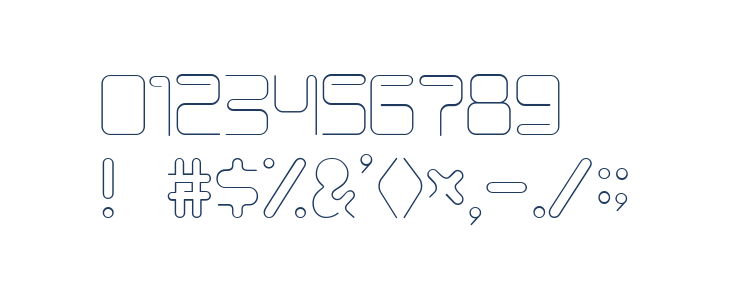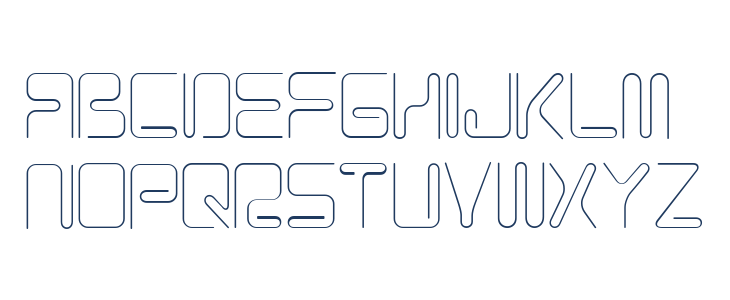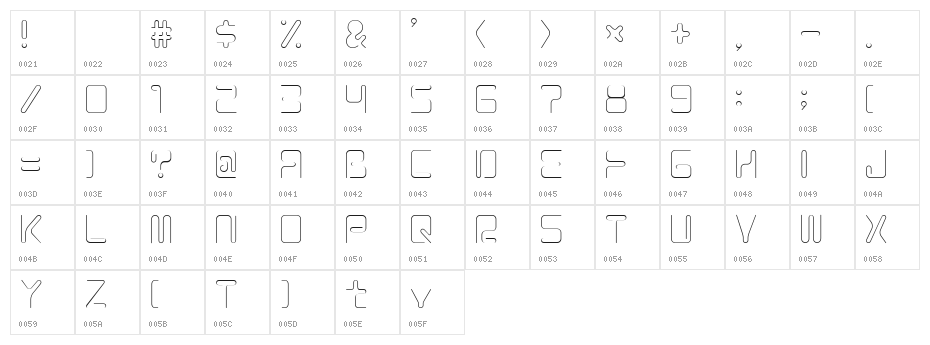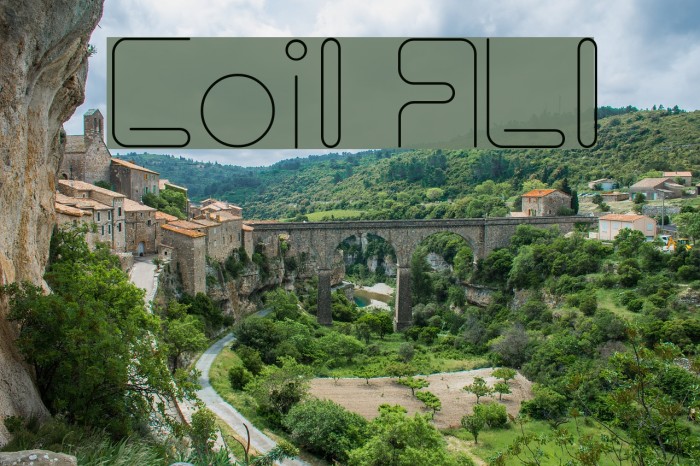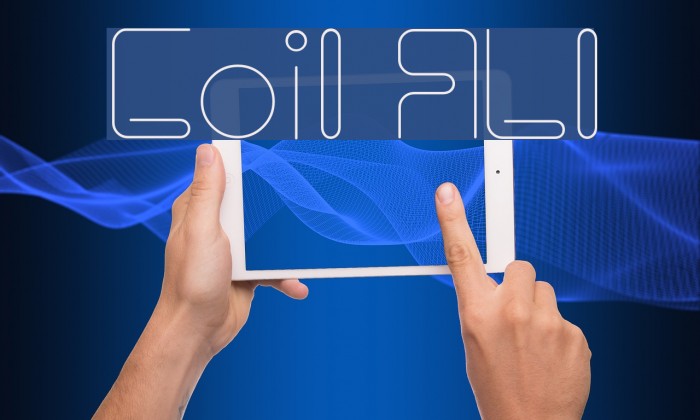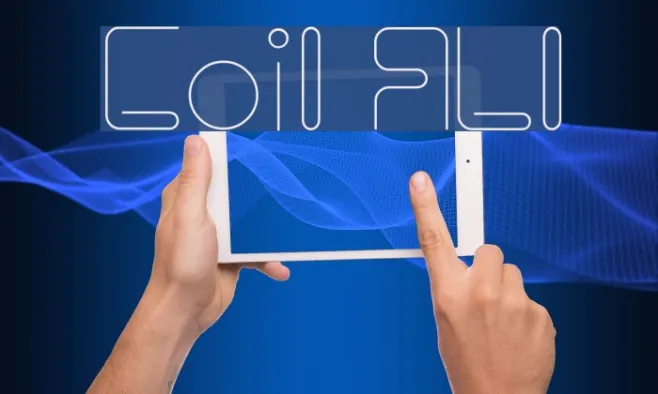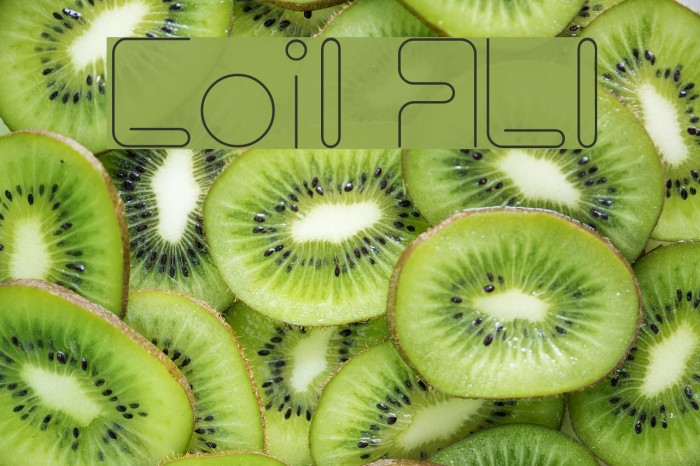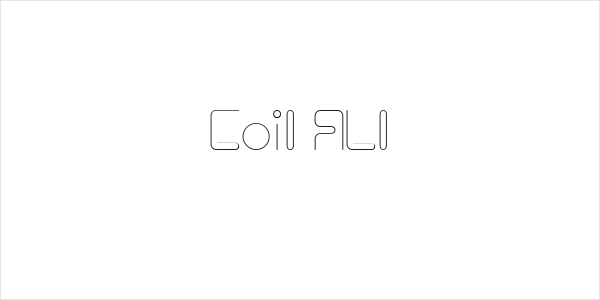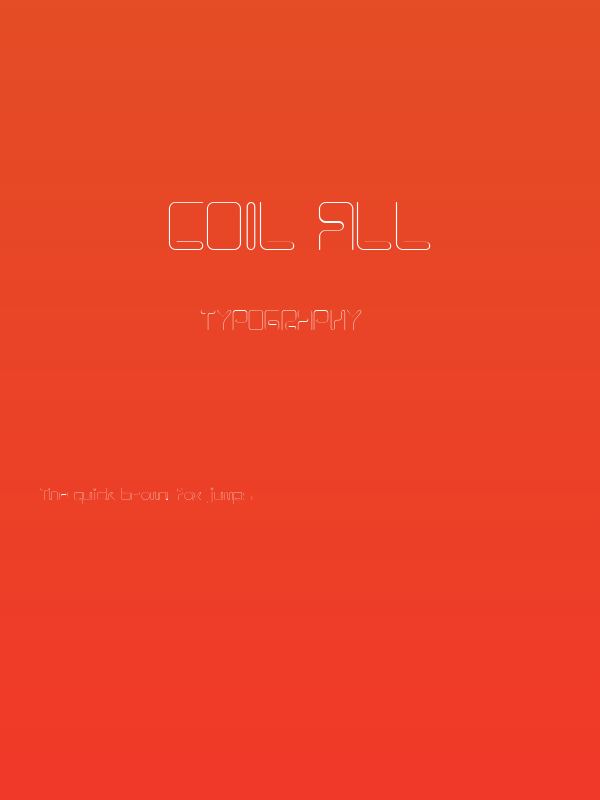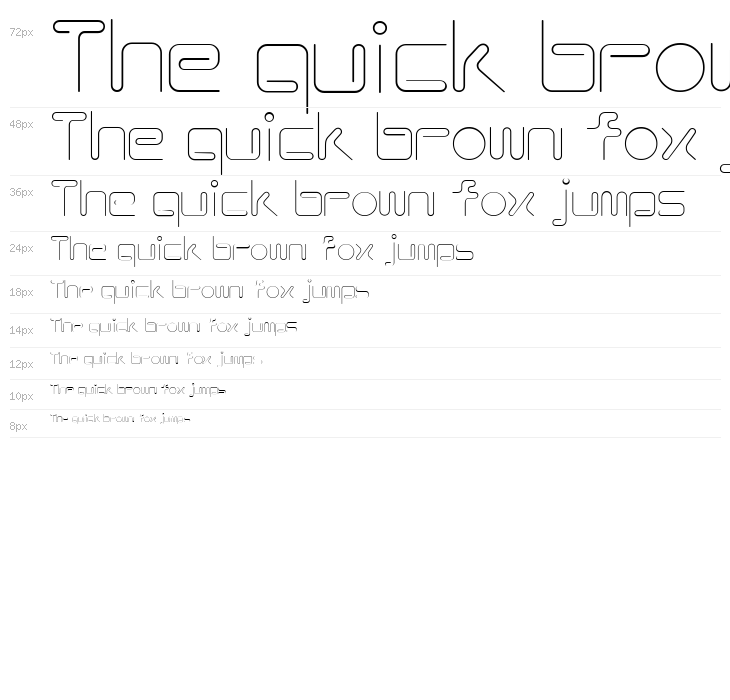
Coil ALl Font
Coil ALl Description
This font features a futuristic and minimalistic design, characterized by its geometric and linear structure. Each character is formed with a single continuous line, creating a sense of fluidity and modernity. The uppercase and lowercase letters maintain a consistent style, with rounded edges and open forms that suggest a sense of openness and innovation. The numerals and special characters follow the same design principles, ensuring a cohesive look across all elements. This font's unique style makes it stand out, offering a contemporary and avant-garde aesthetic that is both eye-catching and versatile.
| Proposed Projects | Ideal for tech branding, sci-fi themed projects, modern art installations, and innovative product packaging. |